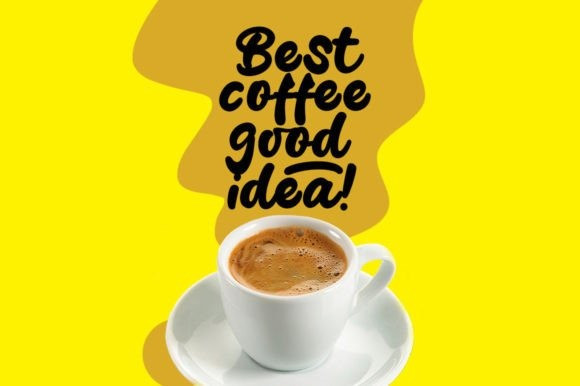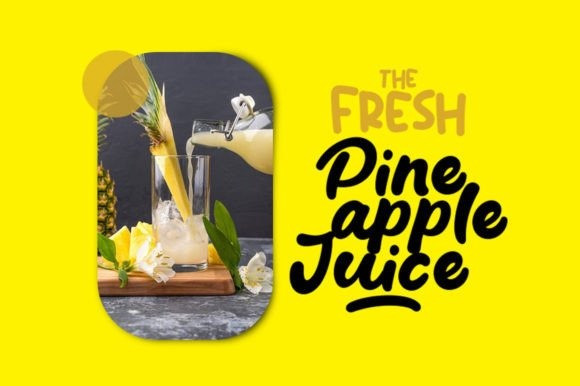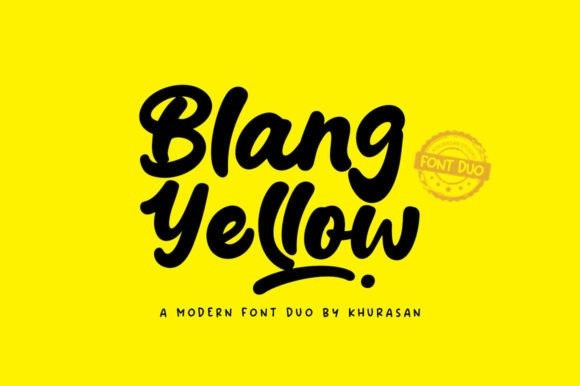
Blang Yellow Font
Blang Yellow Font is a fun handwritten font duo (script and display) perfect for posters, logos, magazines, book covers, banners, and many more! Get this amazing typeface, and use it to create lovely designs!